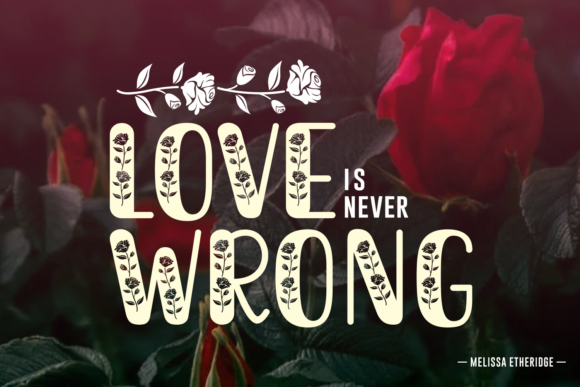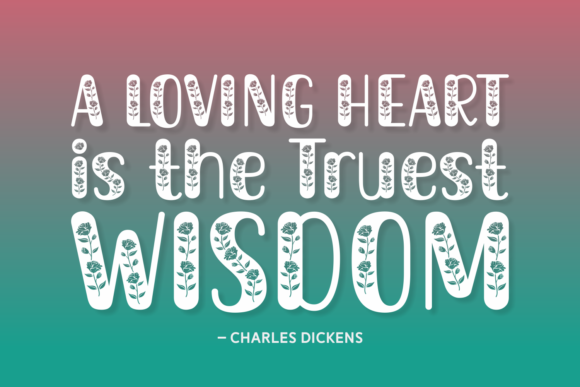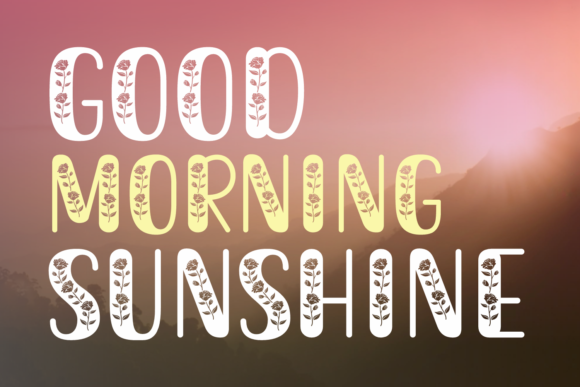
Roses Bloom Font – Free Download
Introduction to Roses Bloom Font
Roses Bloom is a charming and sweet decorative font.
Key Features of Roses Bloom Font
Why Choose Roses Bloom Font?
Roses Bloom Font offers exceptional quality and versatility, making it a valuable addition to your design toolkit. Whether you’re creating for personal projects or commercial use, Roses Bloom Font delivers professional results.